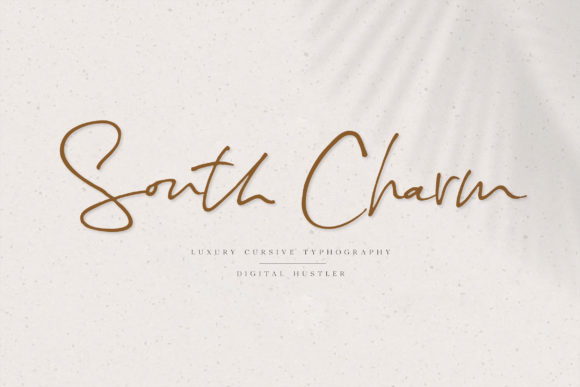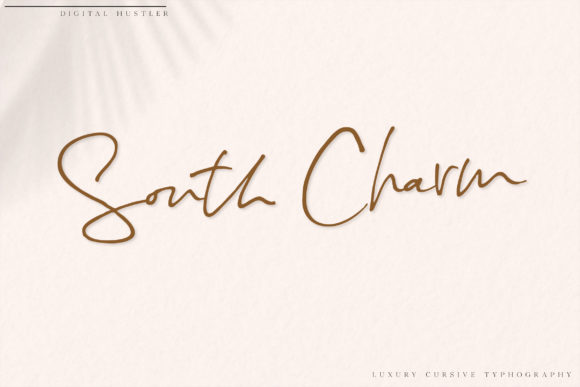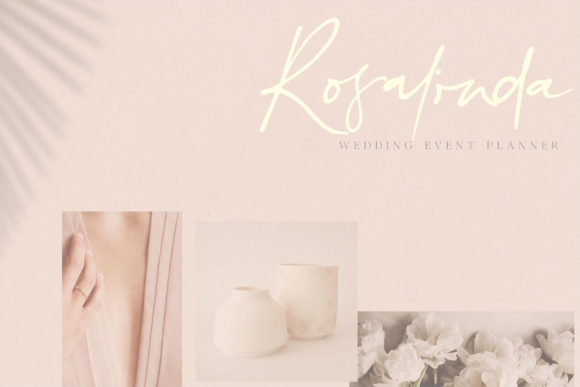
About South Charm Font
South Charm is a stylish and delicate script font. It has a clean, thin and smooth vibe and it will be a hit for any design that you want to add it to. This font is PUA encoded which means you can access all of the glyphs and swashes with ease!